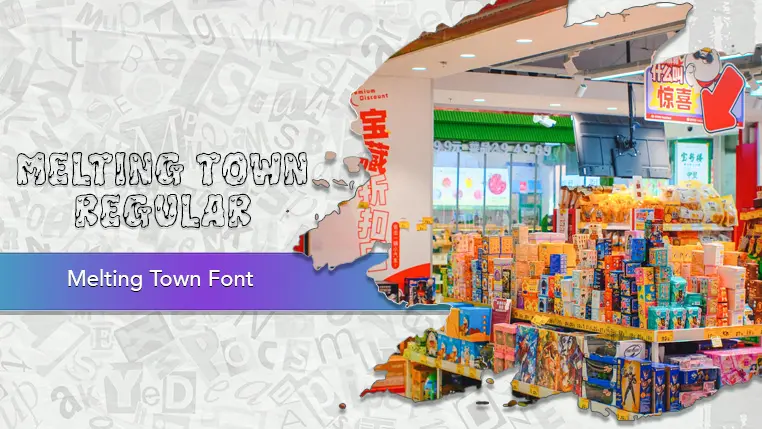
The Melting Town font family may be ideal for you if you enjoy working on an artistic design project. The lively, expressive look of this typeface, which was created by Eko Bimantara, makes it ideal for Branding and Logos. Ideal for events, parties, or promotions that are fun and engaging. ts whimsical nature is well-suited for children's books, toys, or other related products. Great for creating eye-catching social media posts, stories, and advertisements. and other light-hearted visual projects.
Regular are the one primary font styles of the Melting Town font family. You may build dynamic, visually appealing text layouts with the distinct flair that each style offers. With crisp, readable lines and a relaxed tone.